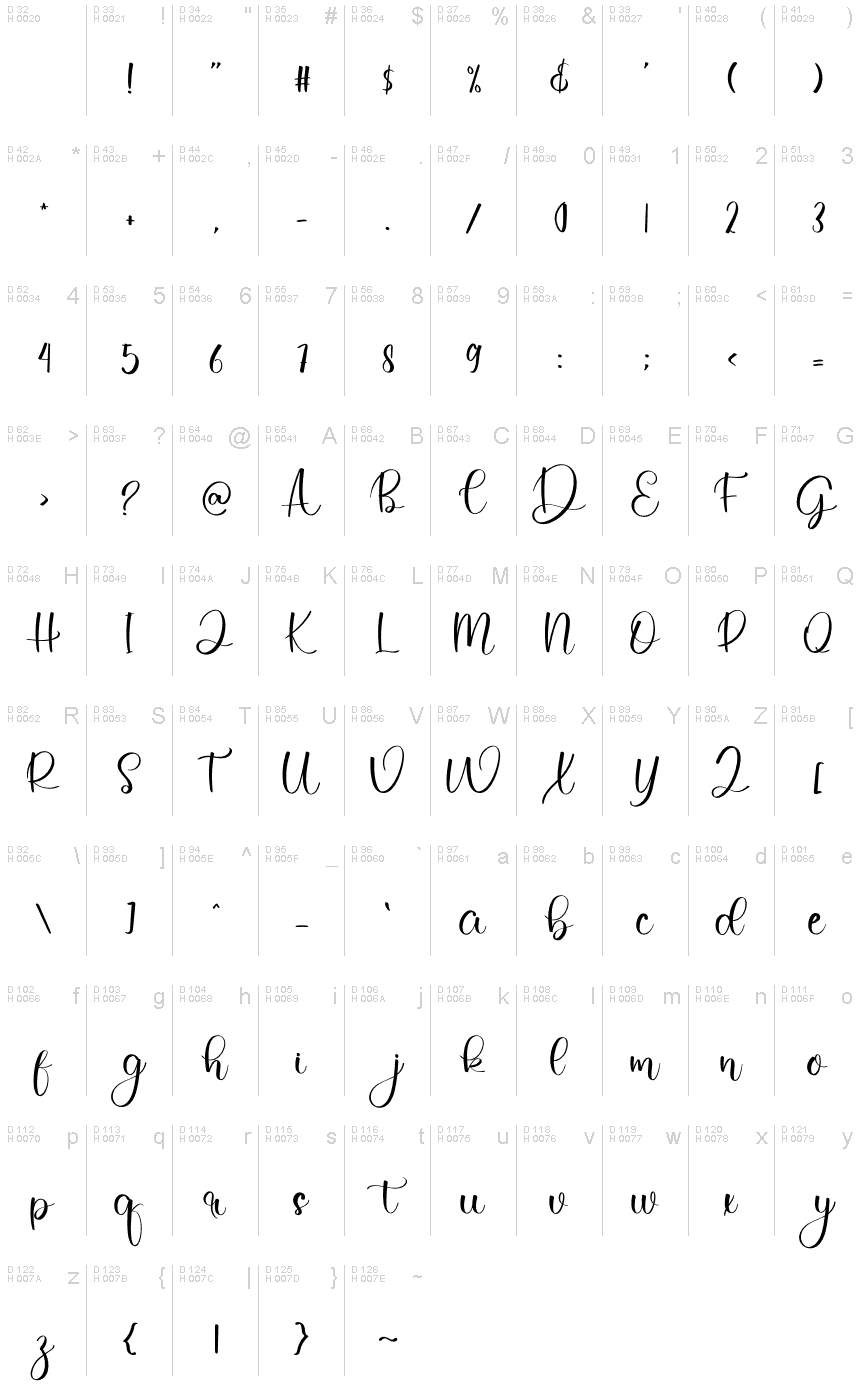
Dreams
The Dreams font, created by PiPi Creative, is a beautiful handwritten typeface that exudes elegance and grace. With its semi-light weight, this font is perfect for projects that require a touch of sophistication and charm.
Whether you're designing wedding invitations or creating a romantic greeting card, Dreams adds a whimsical and dreamy element to your work. Its flowing strokes and delicate curves make it suitable for crafting logos, branding materials, or even poetry books.